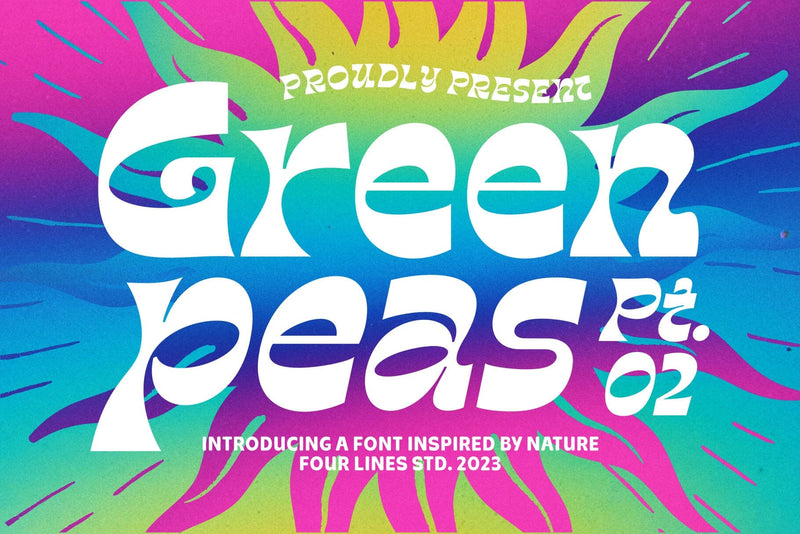
Green Peas Pt. 02 – Groovy Display Font
Say hello to Green Peas Pt.02 Typeface - the groovy love child of retro and nature, hitting all the right notes for your designs. This font has a contagious energy, like a party that never ends, pumping joy into every letter. Get ready to disco!!